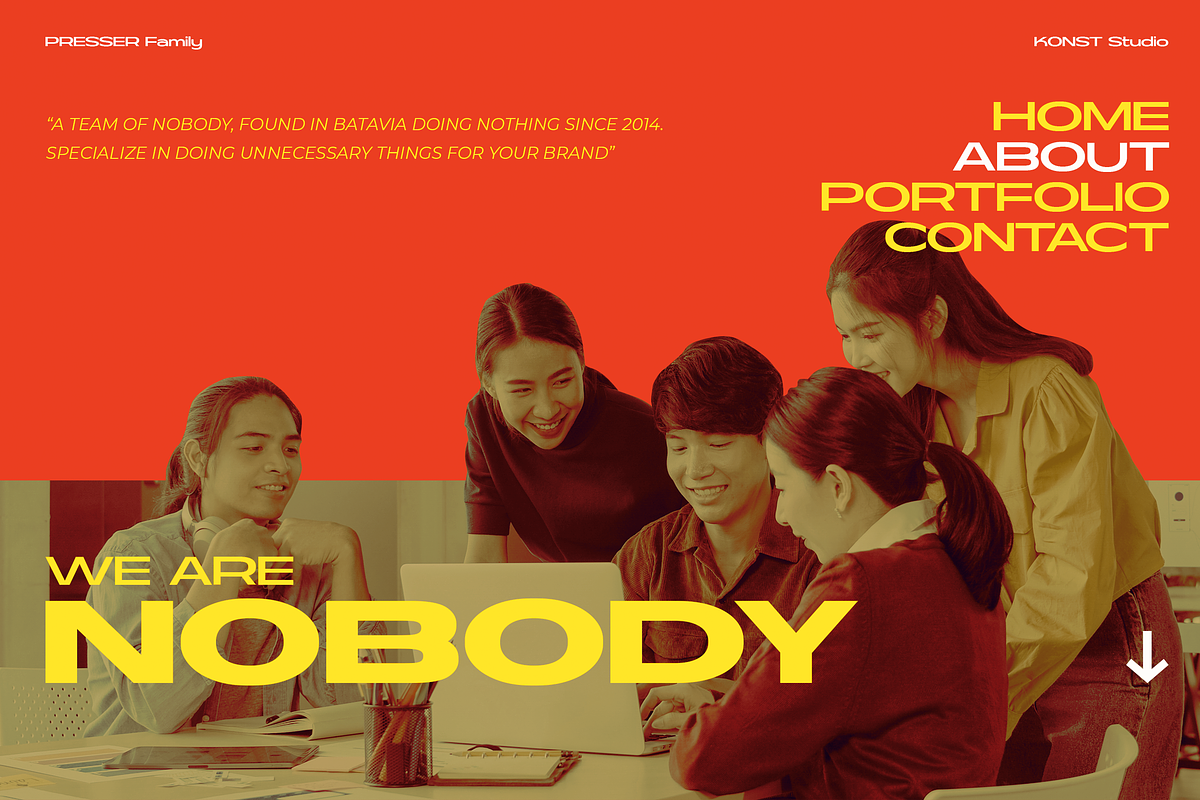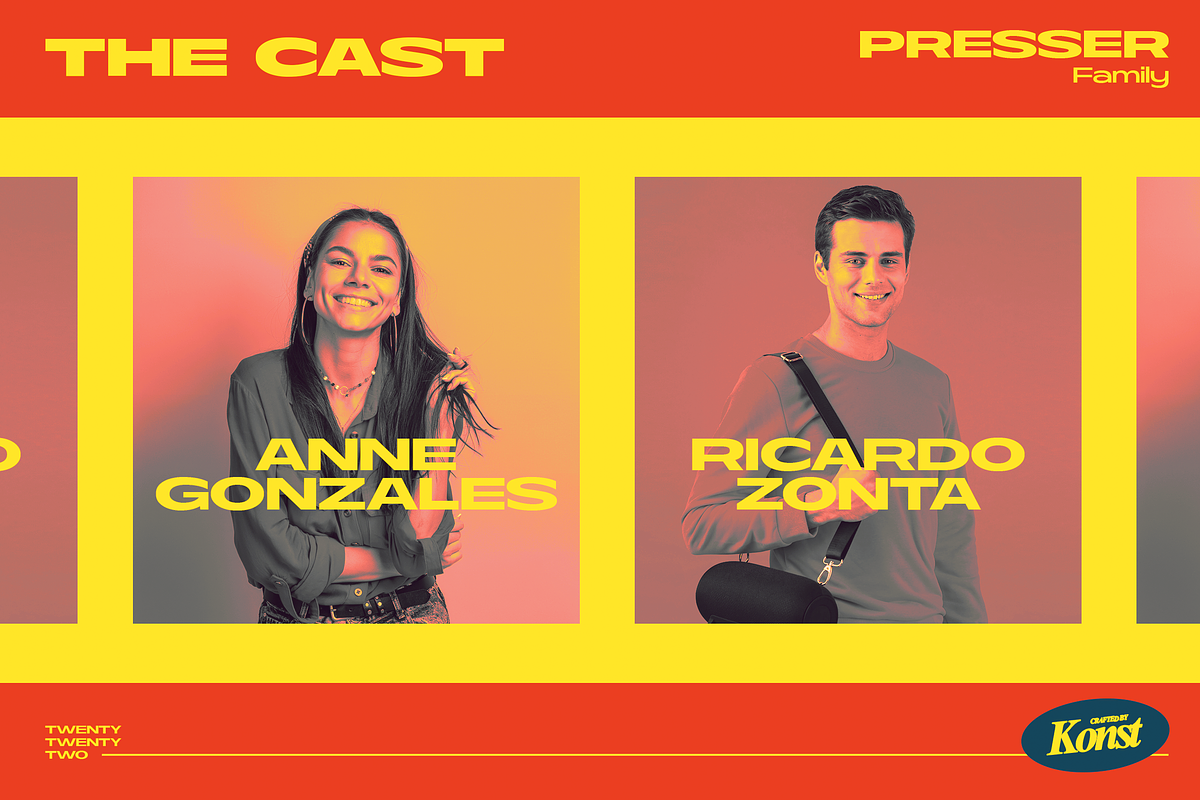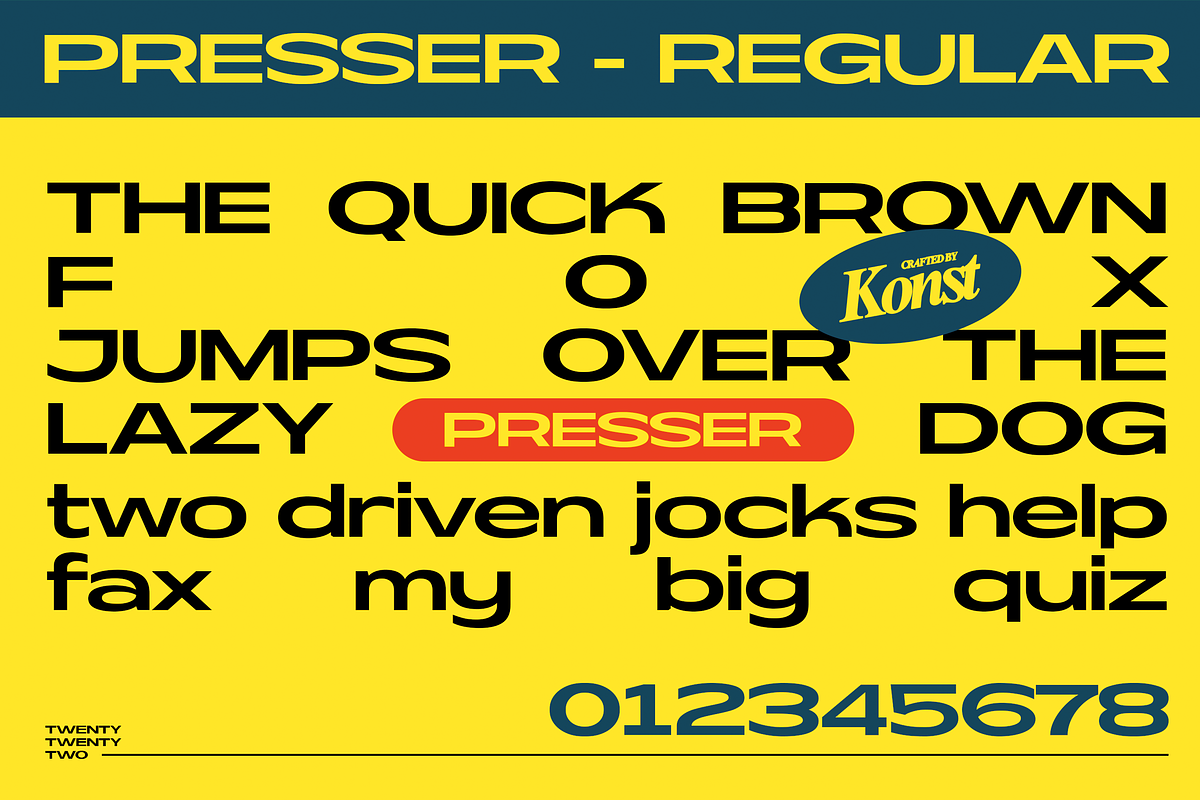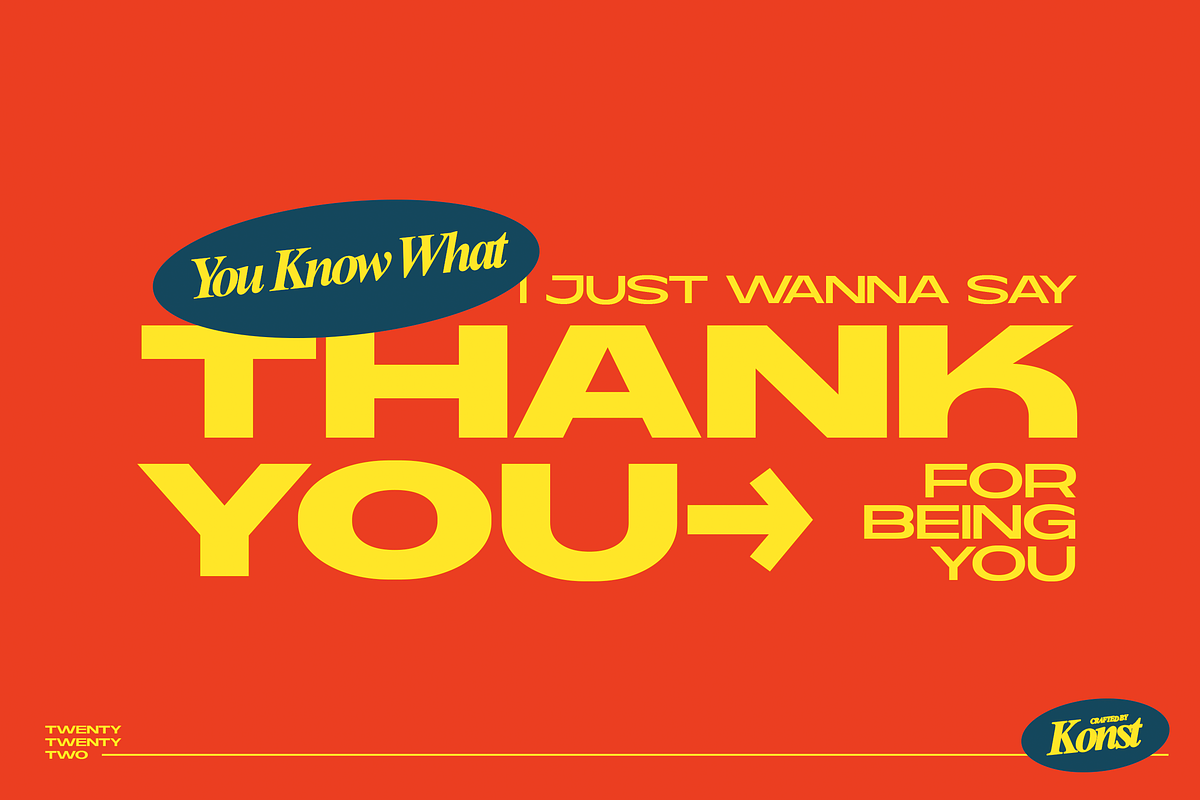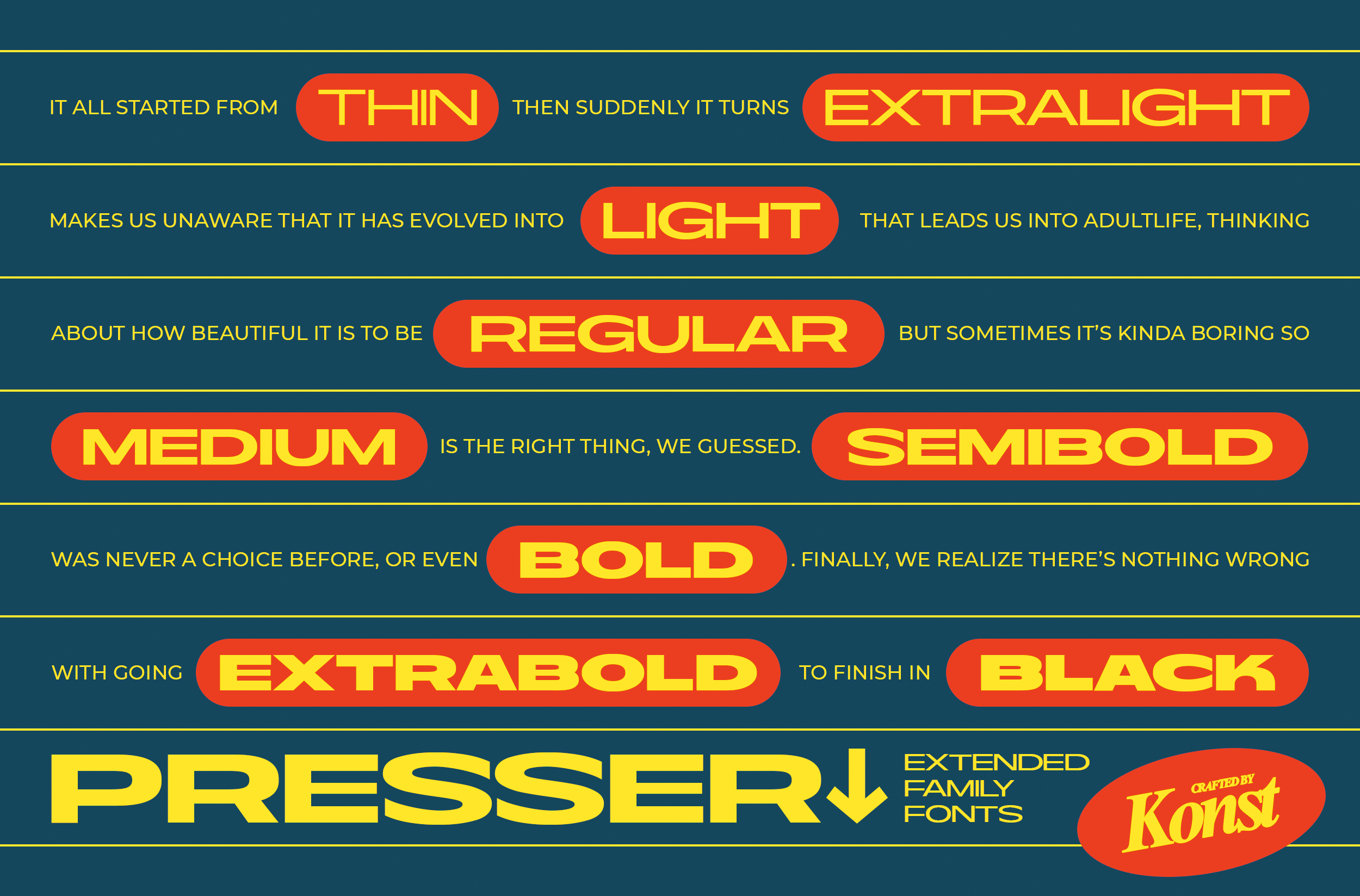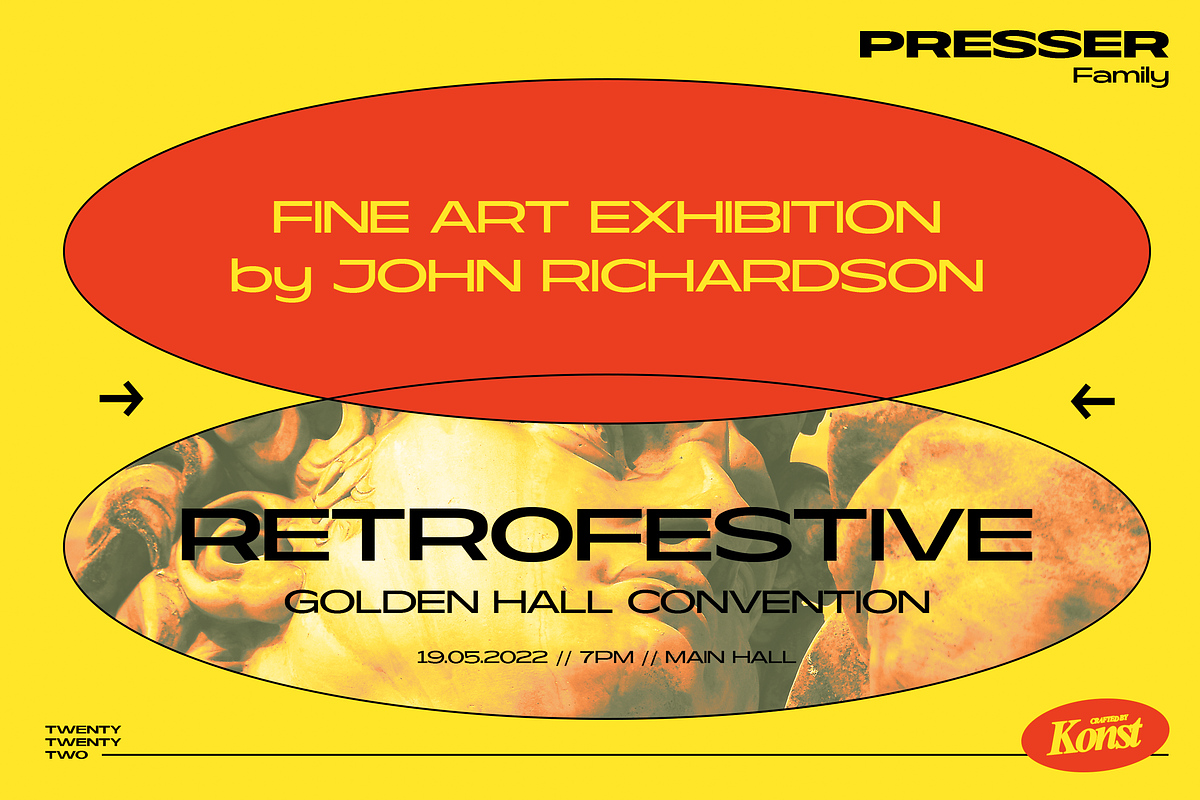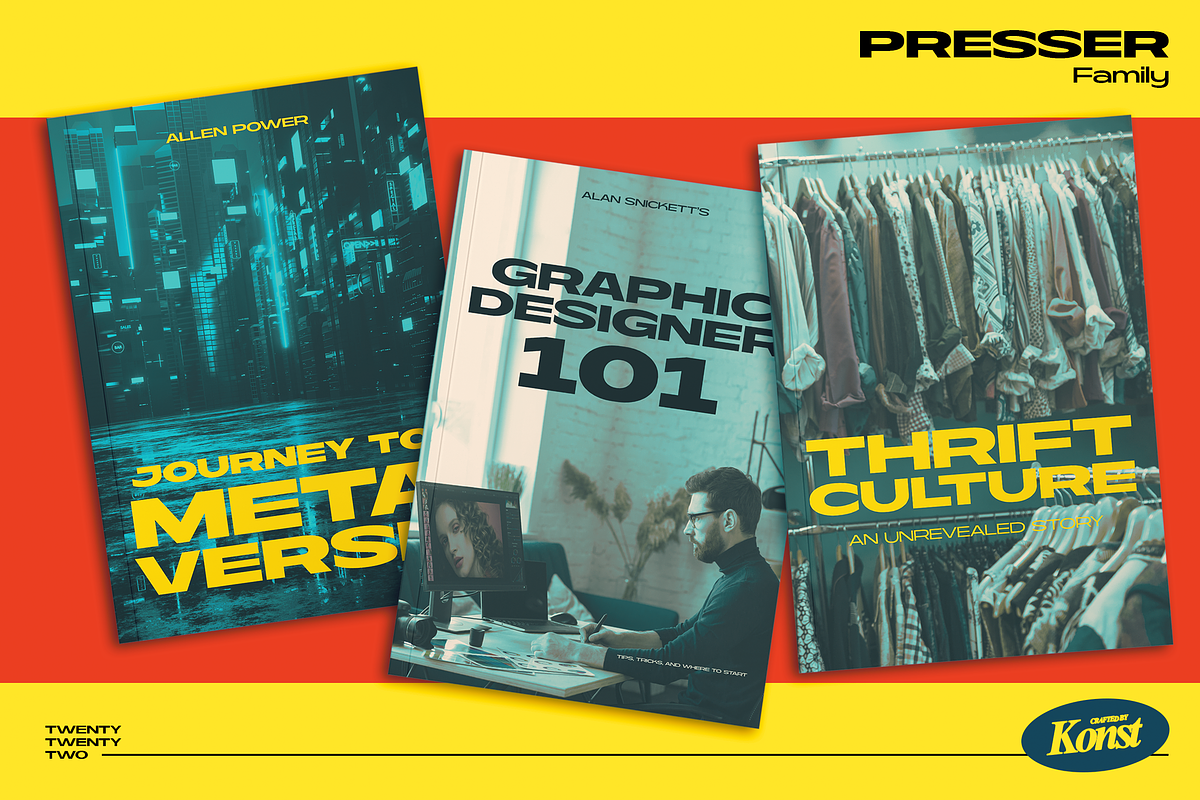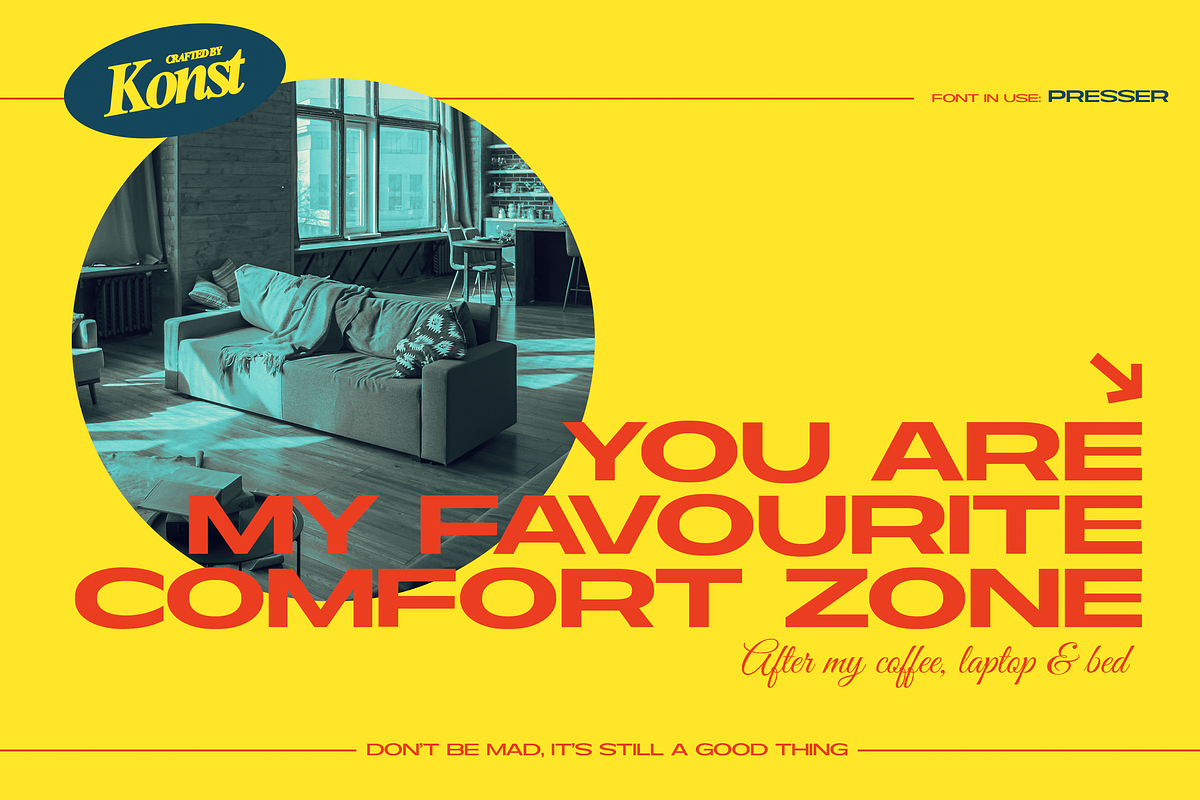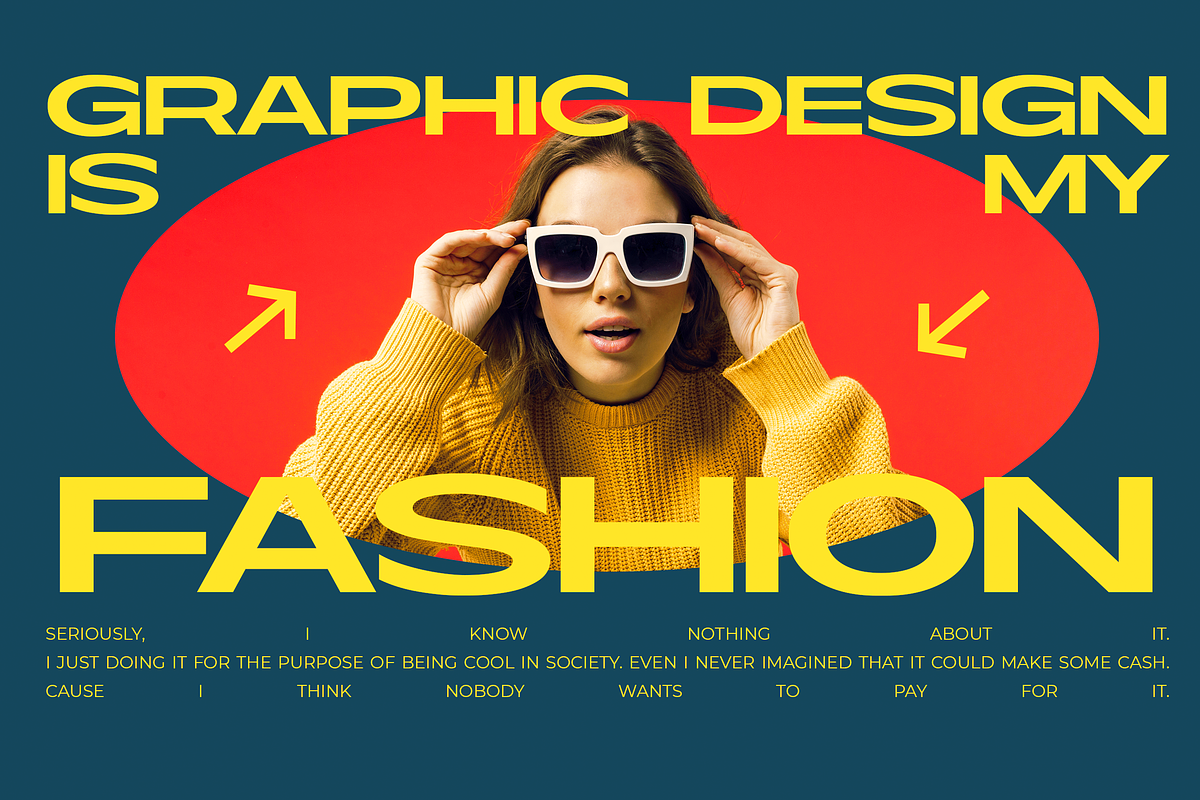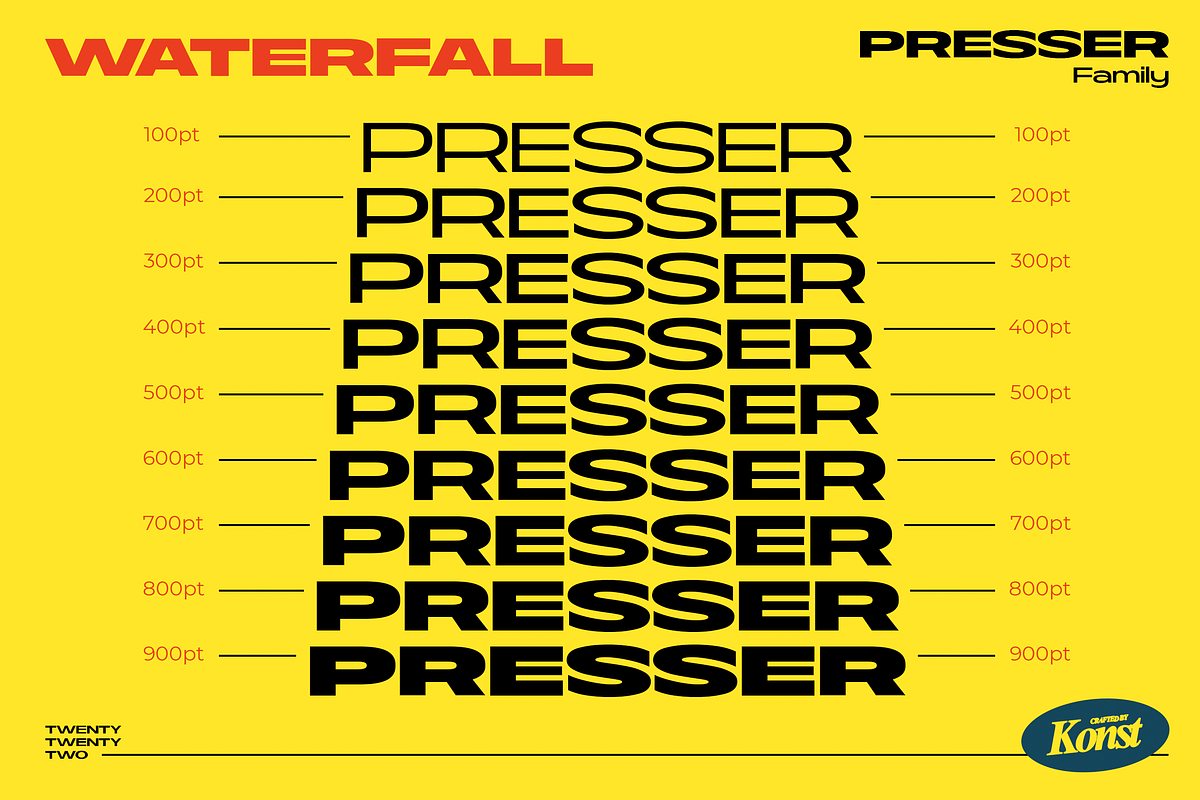
PRESSER - Extended Sans Serif Fonts
80s, 90s, y2k, sometimes we just wonder, "what year is it today?" everything looks like we're going backward (in a good way though, calm down).
Since luck is a form of preparation that meets a chance, again, we came up prepared.
Introducing PRESSER. A new sans-serif family with the diverse vibes of nostalgia and modernism in one shot.
ps: it's WIDE, like seriously wide, extended. We warned you.